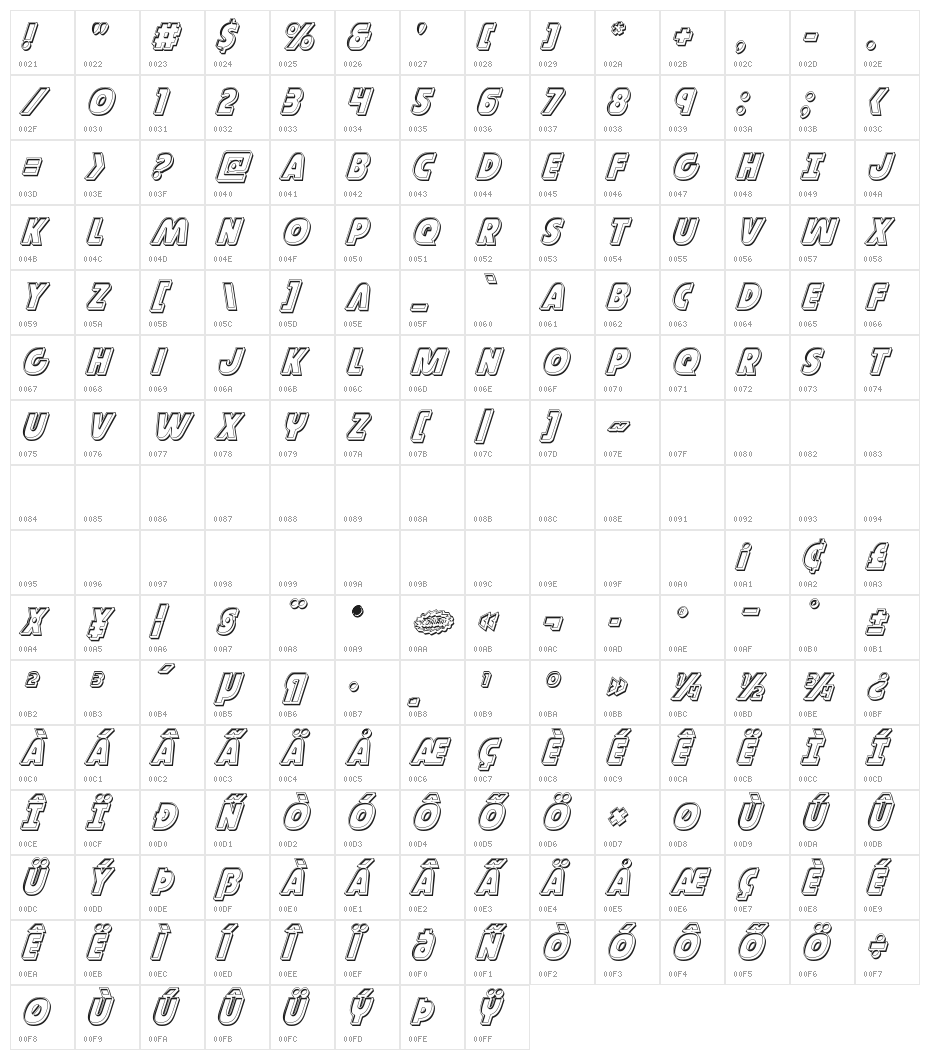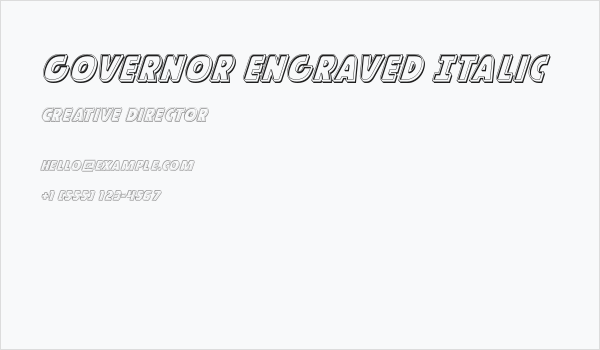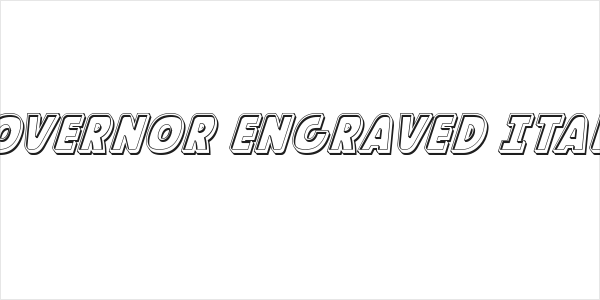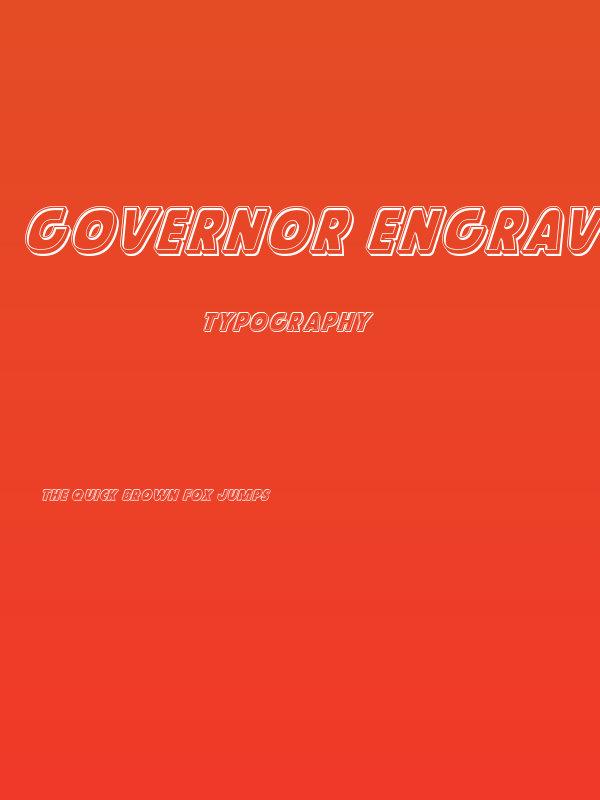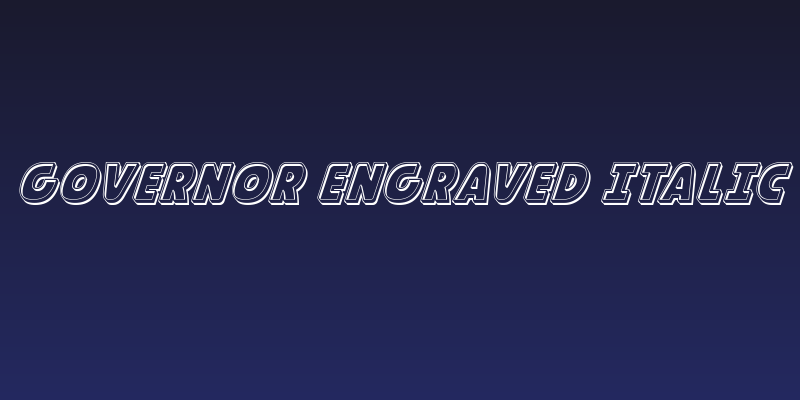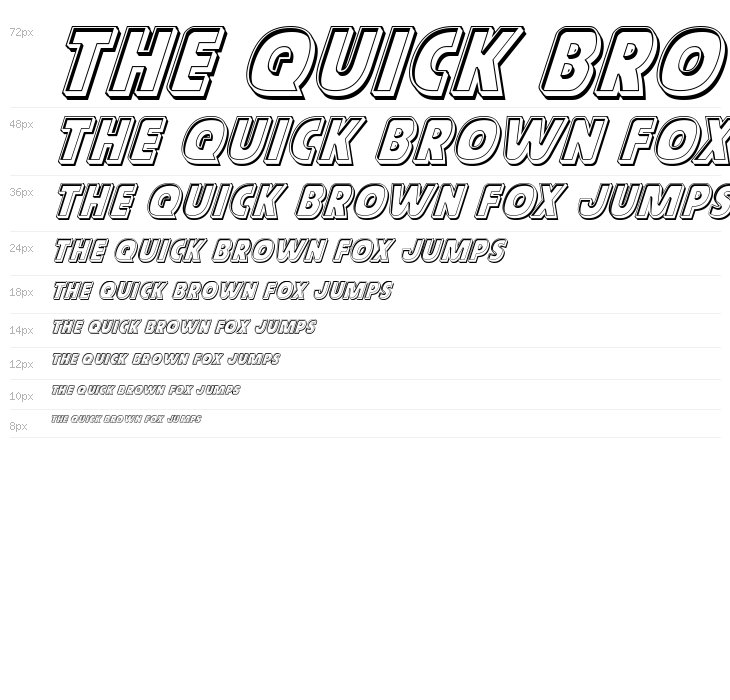
Governor Engraved Italic Font
Governor Engraved Italic Description
This font features a bold, italicized style with a three-dimensional engraved effect. The characters are outlined with a shadow that gives them depth and a sense of movement. The uppercase and lowercase letters maintain a consistent style, with smooth curves and sharp angles that create a dynamic appearance. The numerals and special characters are designed to match the boldness and engraved look of the alphabet, ensuring a cohesive visual experience. This font is ideal for making a strong statement in any design project.
| Proposed Projects | Ideal for headlines, posters, logos, and any design requiring a bold, eye-catching typeface. |